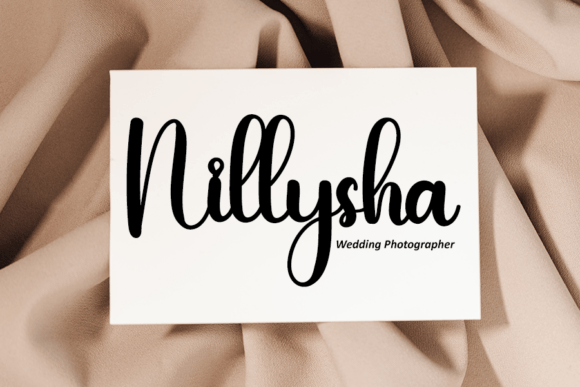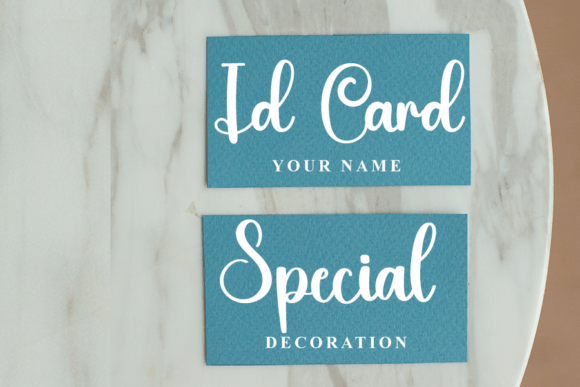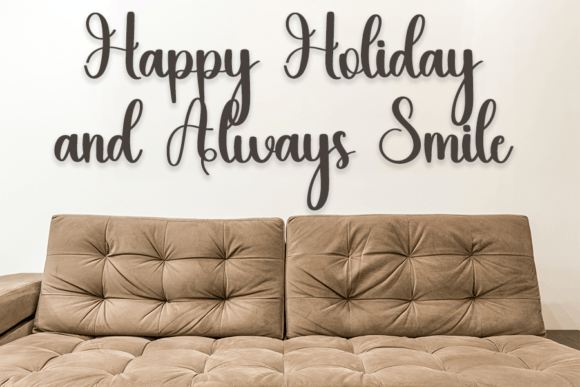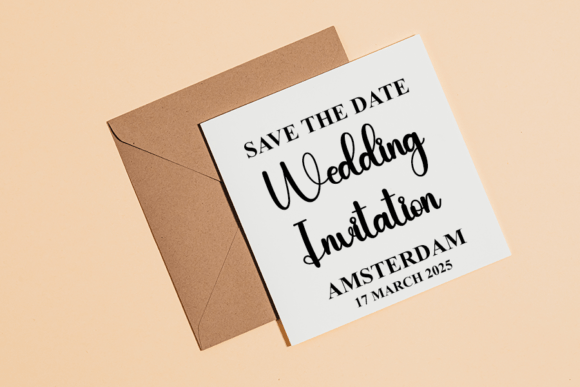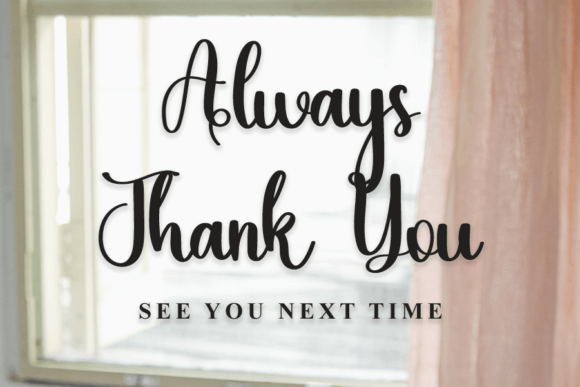
The Comfortable Font: A Designer’s New Best Friend
I’ll never forget the time I was working on a wedding invitation project, and my client asked for a font that was “elegant, modern, and classy.” I scoured the internet, tried out dozens of fonts, but nothing seemed quite right. That was until I stumbled upon Comfortable – a beautiful and refined script font that has since become a staple in my design toolkit.
An Honest Review of Comfortable
- ✨ Elegant and modern design that’s perfect for logos, branding, invitations, and more
- 💫 Beautiful swashes and stylistic alternates to add a touch of sophistication
- 🌈 Extensive character set, including support for multiple languages
While Comfortable is an amazing font, it’s not perfect. Here are a few things to keep in mind:
- 🤔 Some users may find the font a bit too ornate for certain projects
- ⚠️ May not be the best choice for body text or long paragraphs
The Story Behind Comfortable
Comfortable was designed by a team of typographers who wanted to create a font that was both elegant and approachable. Inspired by classic script fonts, they added a modern twist to create a truly unique design. The result is a font that’s perfect for designers, crafters, and creative hobbyists alike.
Q: What type of projects is Comfortable best suited for?
A: Comfortable is perfect for logos, branding, invitations, stationery, wedding designs, social media posts, and more!
Q: Does Comfortable support multiple languages?
A: Yes, Comfortable has an extensive character set that supports multiple languages.